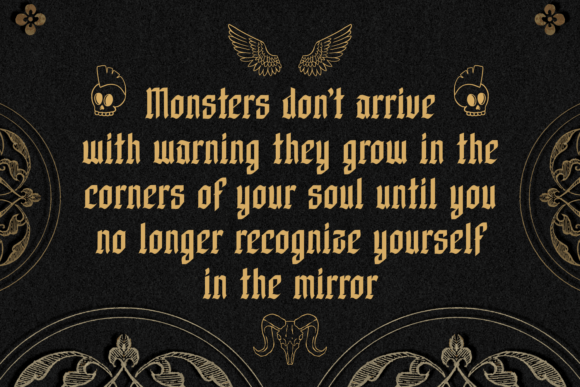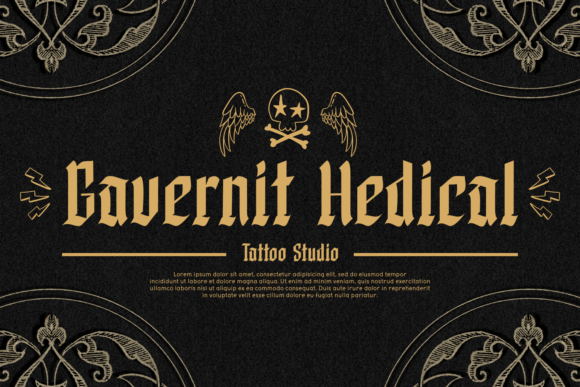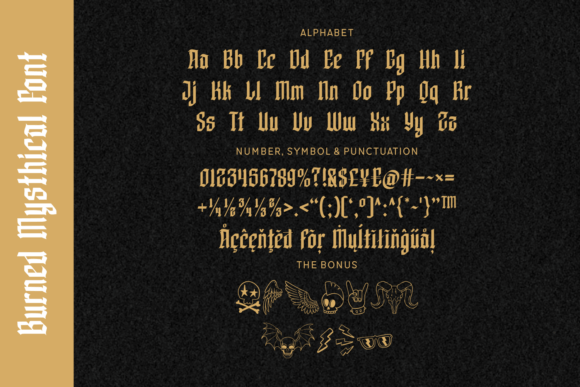
Introduction to Burned Mysthical Font
A promotional image for β€œBurned Mysthical,” a new blackletter typeface.
The dark, mystical theme and classic blackletter style make it a perfect choice for the start of the autumn β€œspooky season,” ideal for fantasy games, metal band logos, and Halloween-themed projects .
Key Features of Burned Mysthical Font
Why Choose Burned Mysthical Font?